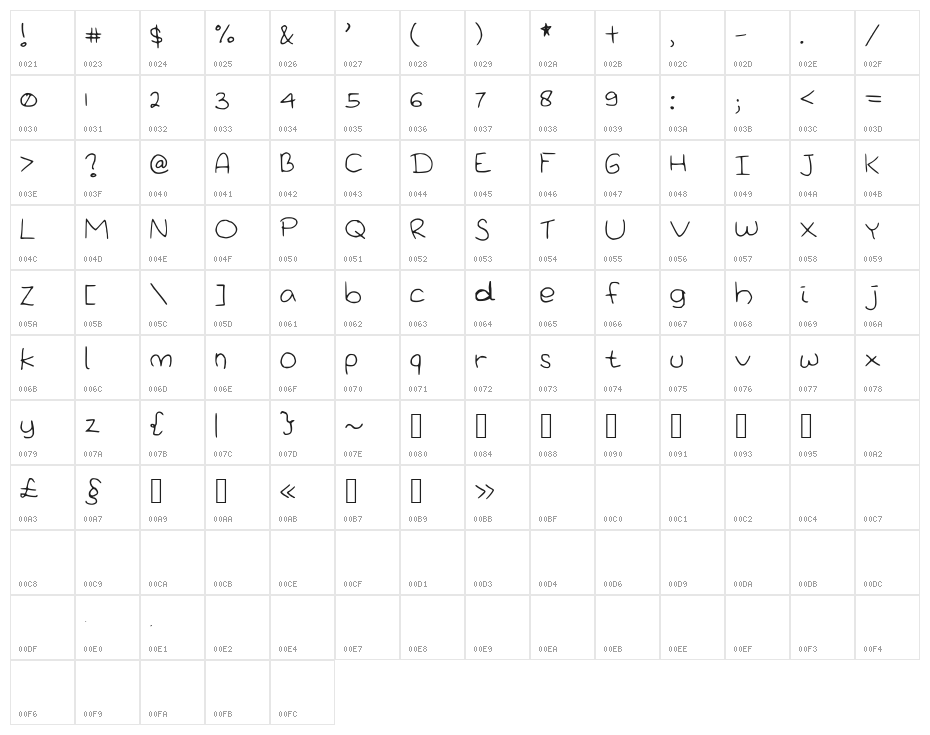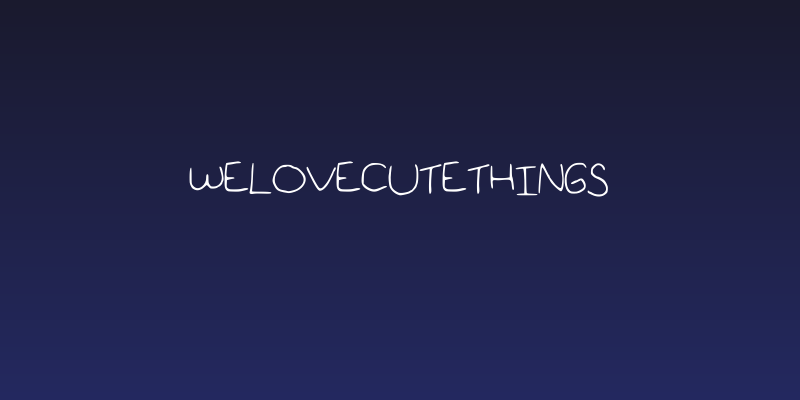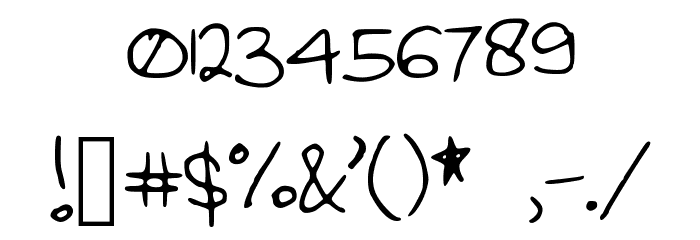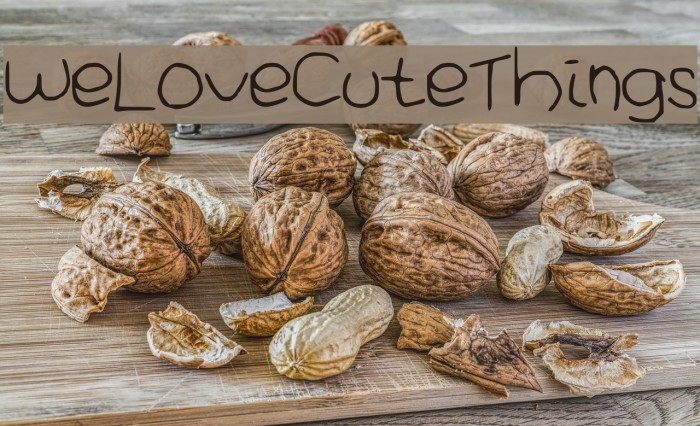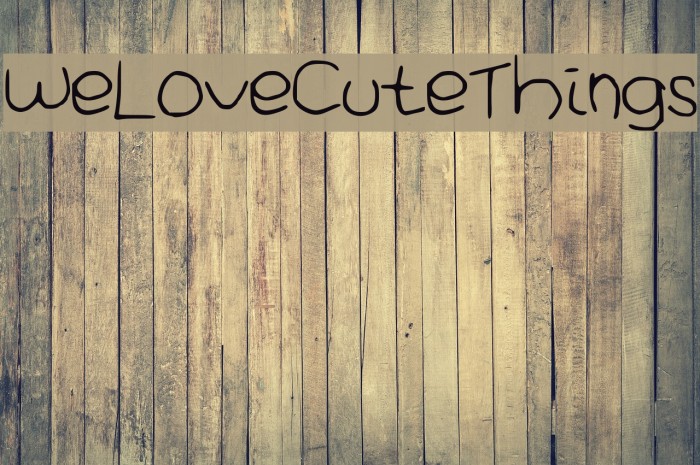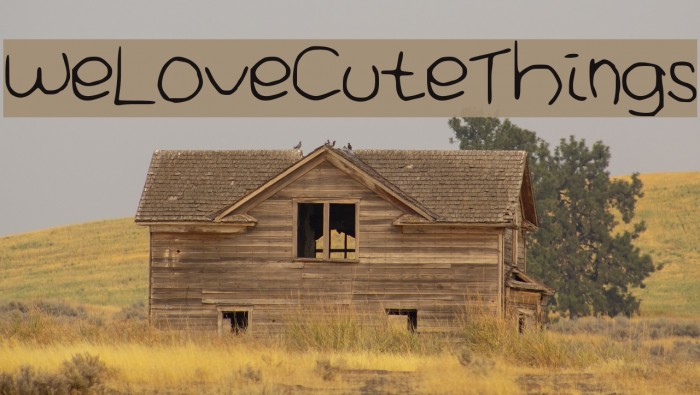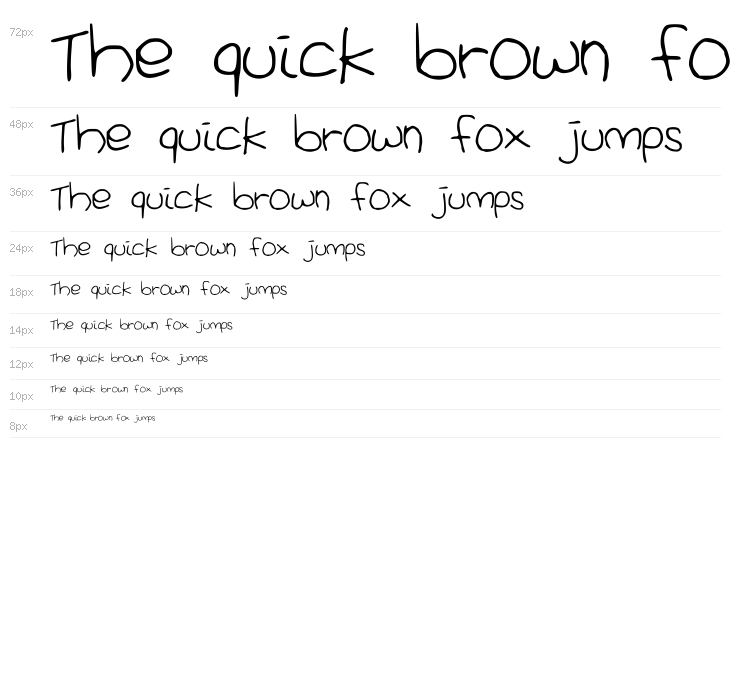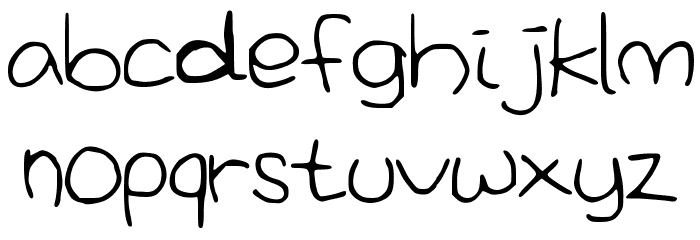
WeLoveCuteThings Font
WeLoveCuteThings Description
This font exudes a playful and whimsical charm, characterized by its hand-drawn, casual appearance. The letters are slightly irregular, giving it a friendly and approachable feel. The strokes are consistent in weight, contributing to its legibility while maintaining a fun, informal style. The rounded edges and slight variations in letter height add to its quirky personality, making it ideal for projects that require a touch of creativity and warmth. The font includes a full set of uppercase and lowercase letters, numbers, and a variety of special characters, ensuring versatility for different design needs.
| Proposed Projects | Ideal for children's books, greeting cards, playful branding, and creative social media graphics. |